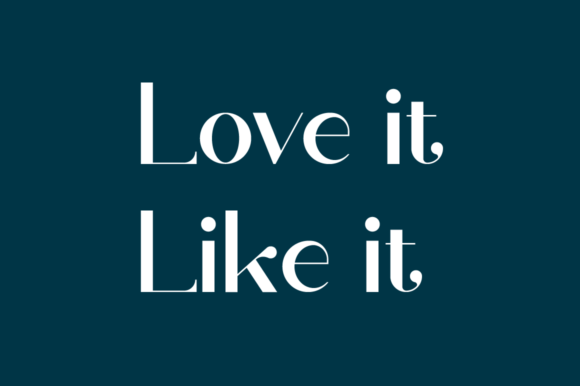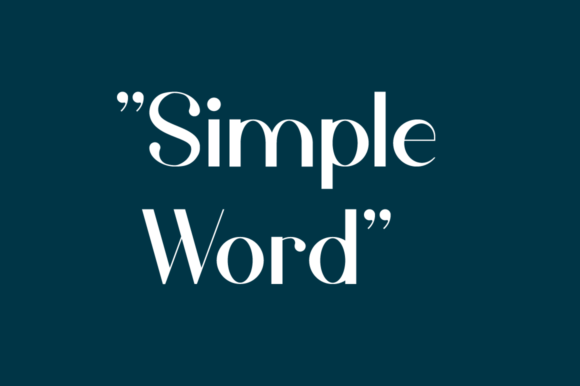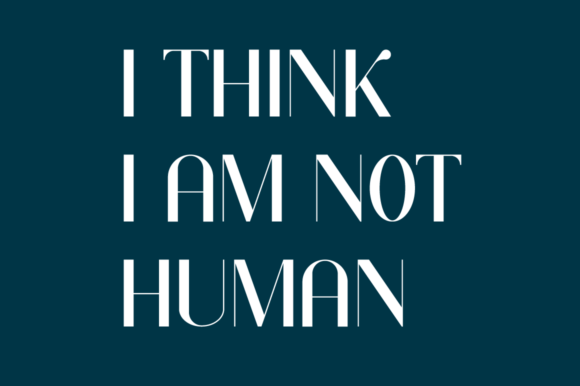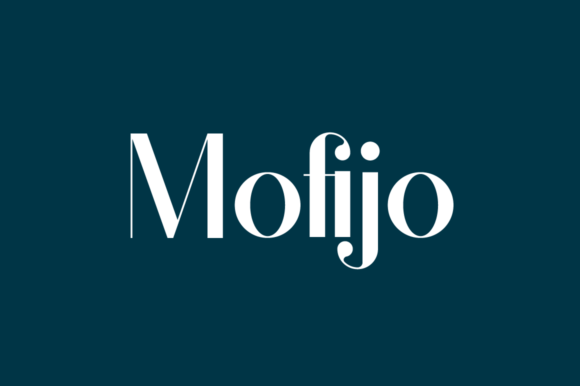
Introduction to Mofijo Font
Mofijo is a distinct display font.
Masterfully designed to become a true favorite, this font has the potential to bring each of your creative ideas to the highest level .
Why Choose Mofijo Font?
Mofijo Font offers exceptional quality and versatility, making it a valuable addition to your design toolkit. Whether you’re creating for personal projects or commercial use, Mofijo Font delivers professional results.